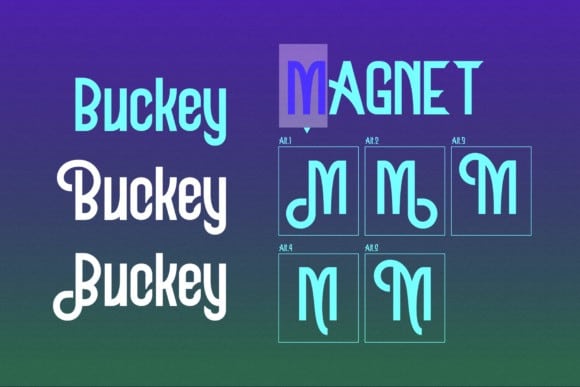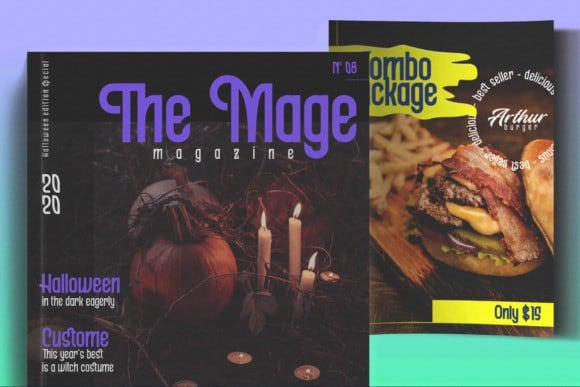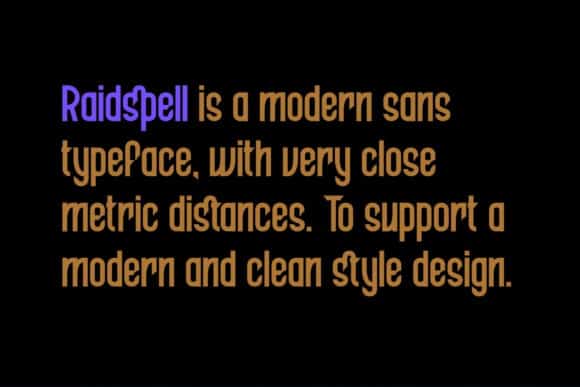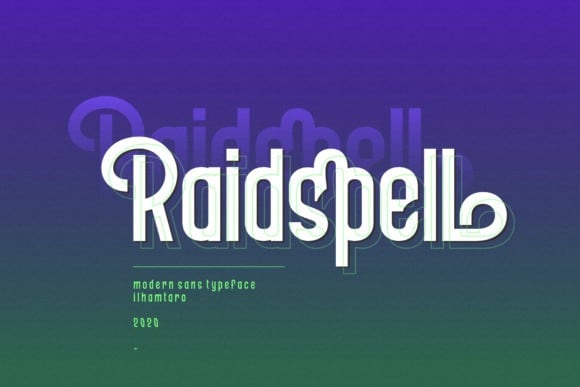
Raidspell Sans Serif Font
Thanks for checking out Raidspell Sans Serif Font – is a playful and relaxed sans serif Typeface. It’s clean and minimal look perfectly fits for modern graphic design. This font is designed and shared by ilhamtaro. Raidspell is a unique and modern sans serif font. Clean and a little bit quirky, this font is the perfect fit for all of your logos, branding, social media, and crafty DIY projects.